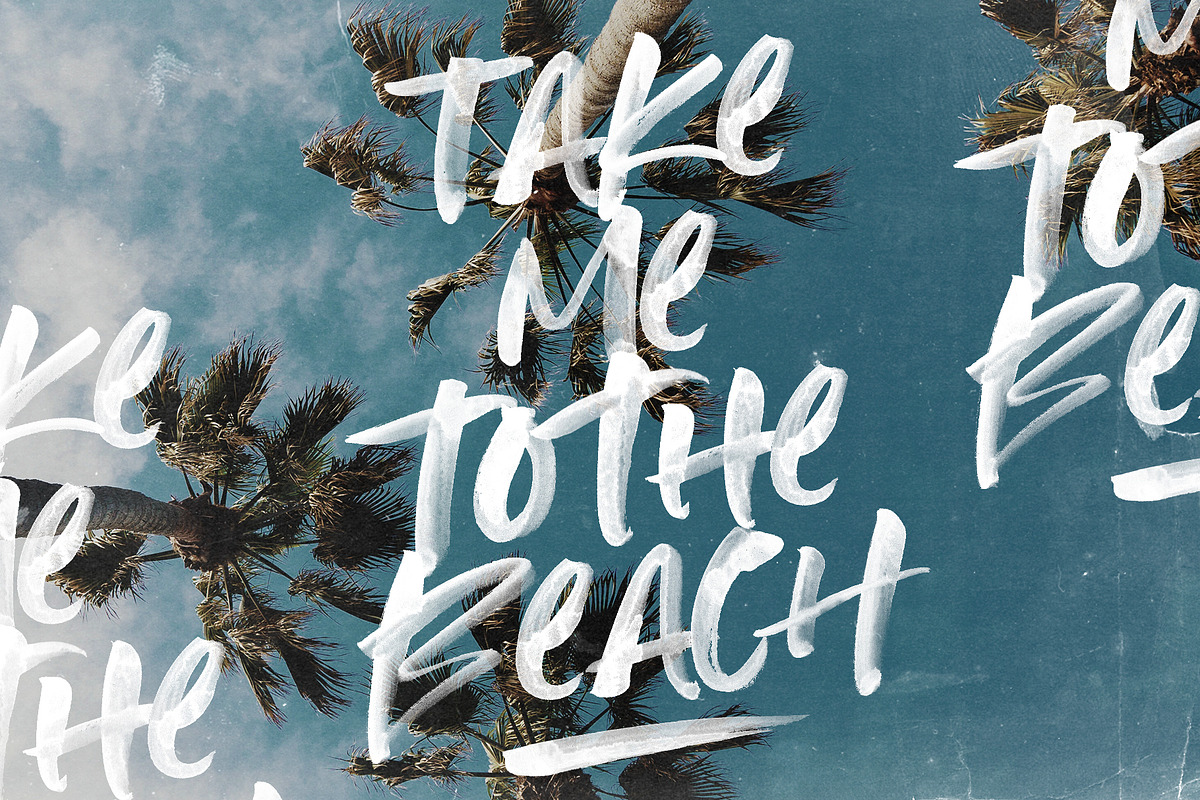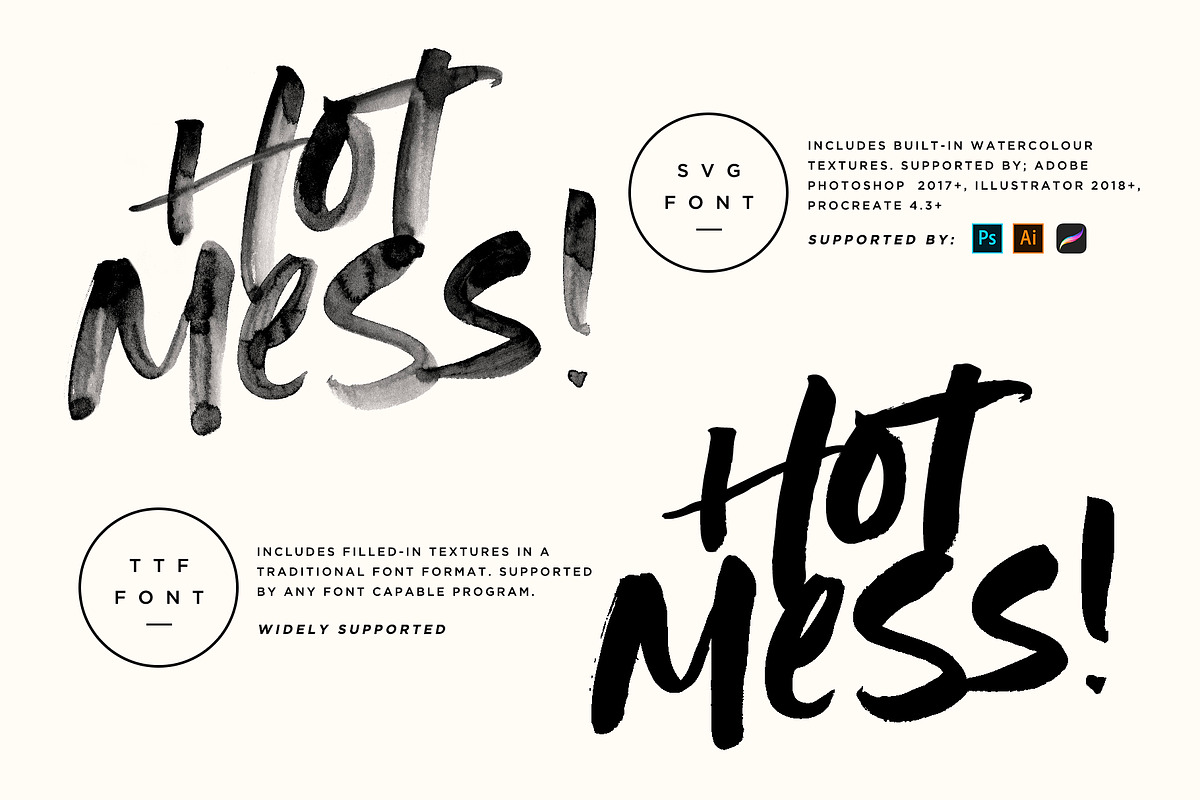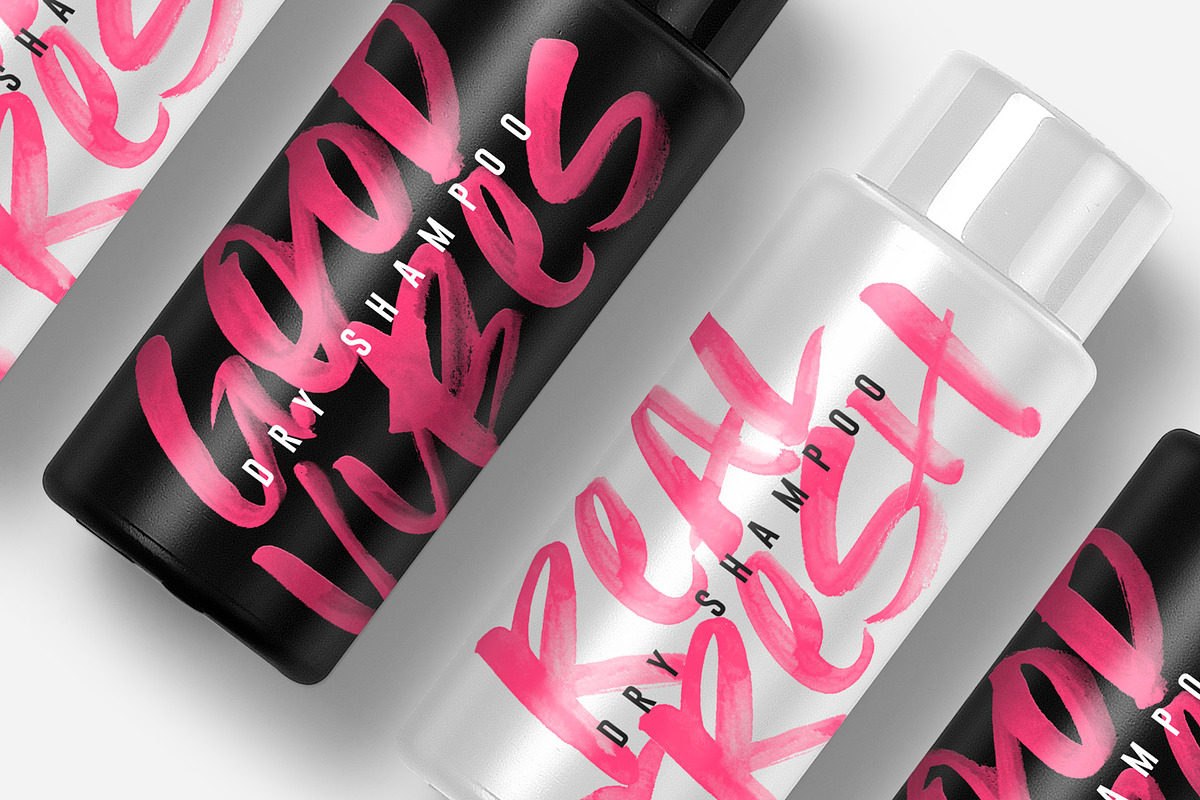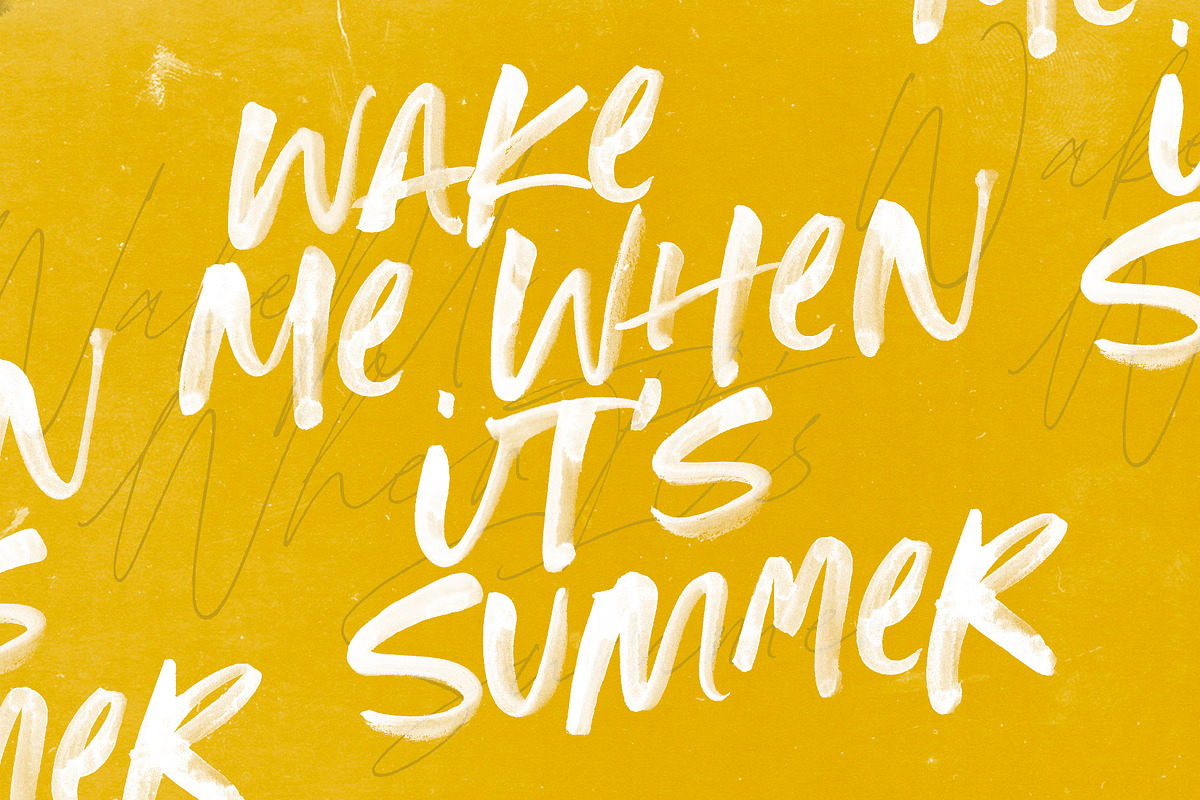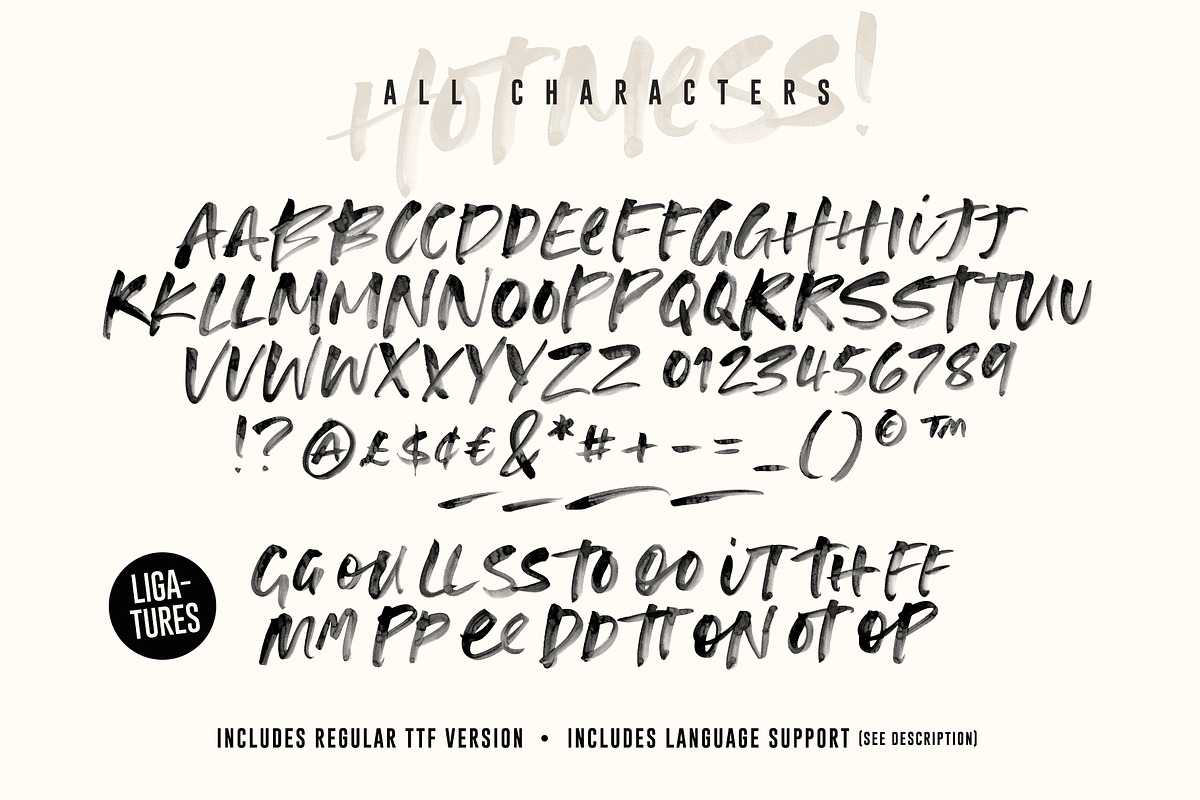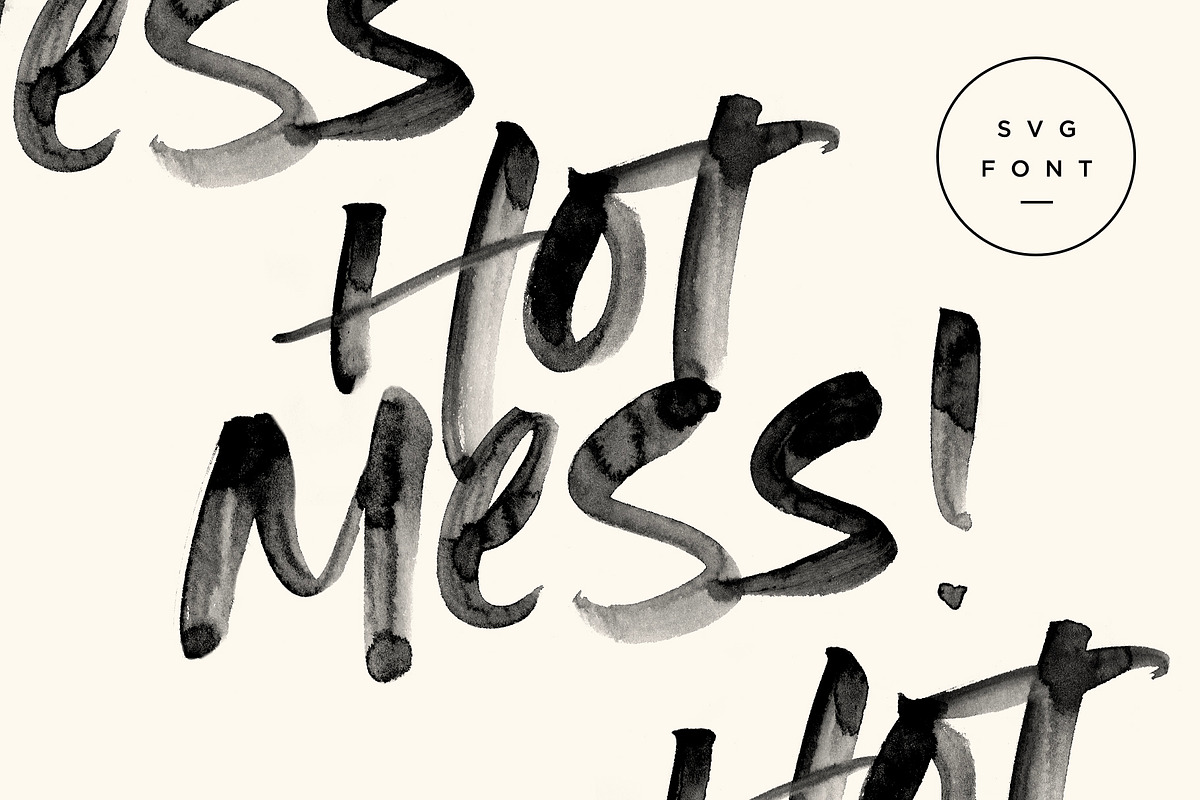
It's bold, brazen, and irresistibly fun - it's Hot Mess! A super realistic hand brushed SVG font just raring to get going. Hot Mess uses new Opentype-SVG font technology to provide high resolution watercolour paint strokes completely built in to the font as a transparency - just simply type away and let the font do it's magic. It's guaranteed to leave a lasting impression on social media posts, advertisements, posters, products packaging & more.
Hot Mess.ttf – Regular version of the font; Use this version if you need the font in a traditional vector format, but still maintaining an authentic rough hand brushed finish to it’s edges.
Ligatures • Both Hot Mess fonts include 17 ligatures built in to the font. These letter pairs help to create authentic, naturally flowing hand-lettering. Ligatures are supported by most desktop graphics & text software (not just the fancy ones!), including Photoshop, Illustrator, InDesign, Word, Pages & Keynote. Ligatures will automatically be switched on when using supported software.
Swashes • Both the SVG and Regular versions include 4 swashes; use these to underline your script text and add a stylish finishing touch. Simply type any of the square brackets to generate a swash [ ] { }